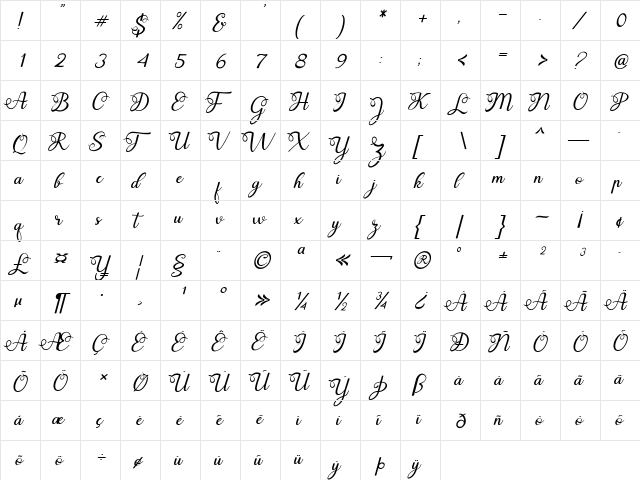
Lamthong Regular
Design Context for Lamthong Typeface
Lamthong is a composed and adaptable typeface that performs quietly and consistently across a wide range of design contexts.